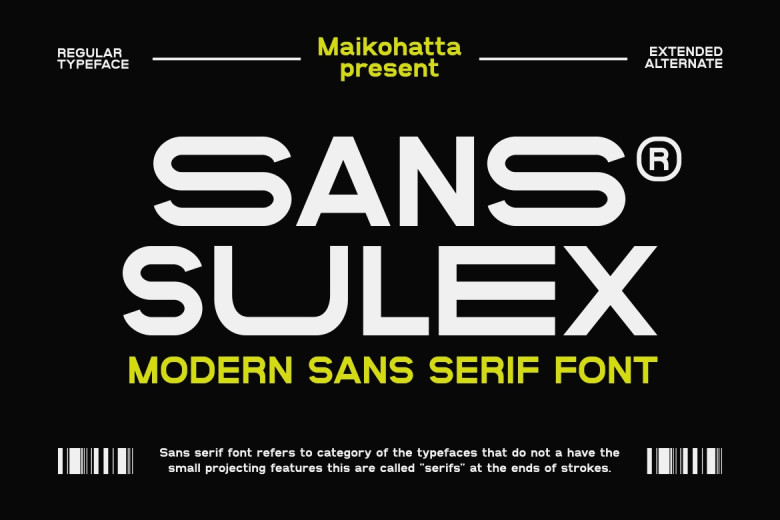
Sans Sulex Font
Presenting Sans Sulex a Modern Sans Serif font, this font is quite versatile and can be used in essentially any type of design. This font is ideal for today’s world of graphic design and modern typography as it is clean, professional and gives the contemporary look and it is also quite easy on the eyes as it is quite visually appealing.
Sans Sulex Sans Serif Font